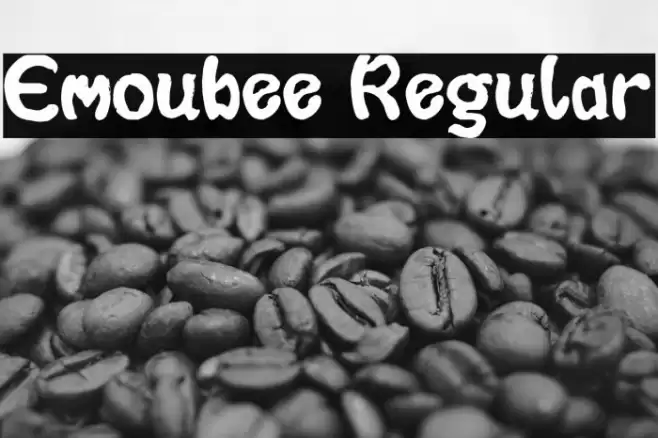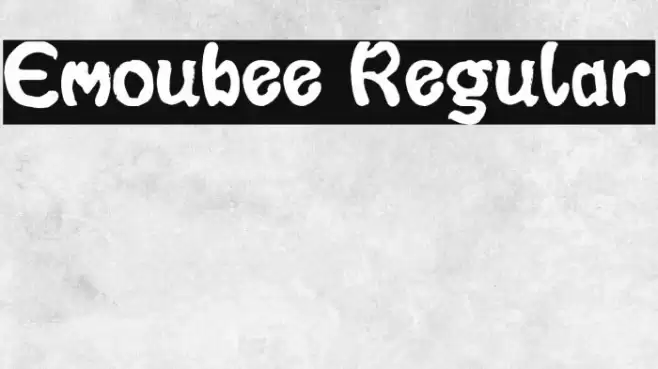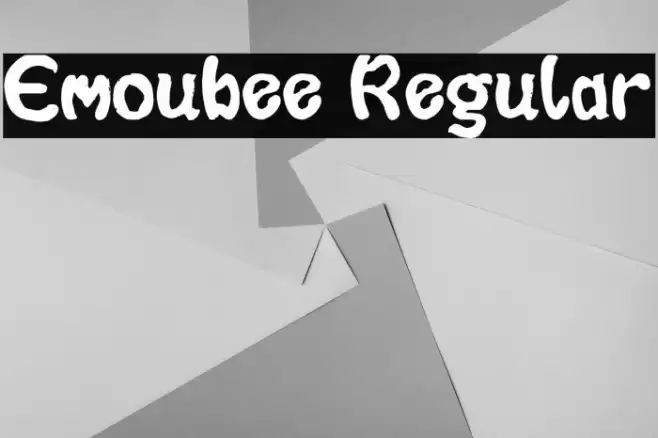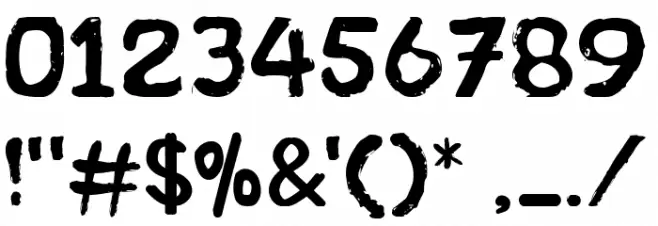
Emoubee Regular Font
Emoubee Regular Description
This font features a bold and playful design with a hand-drawn aesthetic. The characters are thick and rounded, giving a sense of warmth and approachability. The irregularities in the strokes add a whimsical and artistic touch, making it stand out in creative projects. The uppercase and lowercase letters maintain a consistent style, while the numbers and special characters complement the overall look. This font is ideal for projects that require a fun and informal vibe, such as children's books, playful branding, or artistic posters.
A bold, playful font with a hand-drawn, artistic style from Regular fonts.
- Proposed Projects: Children's books, playful branding, artistic posters, informal invitations.
- Overall Style: Playful, Artistic